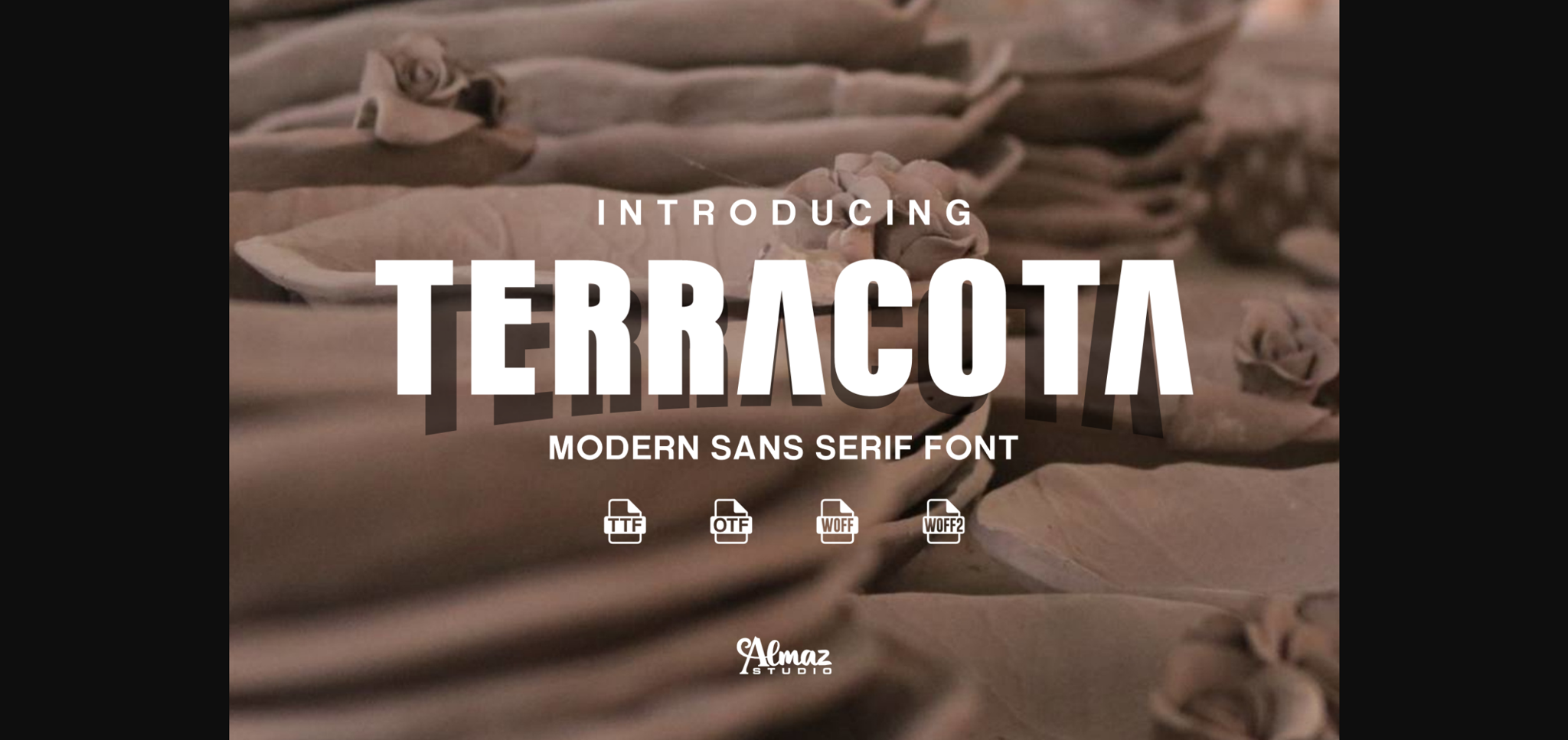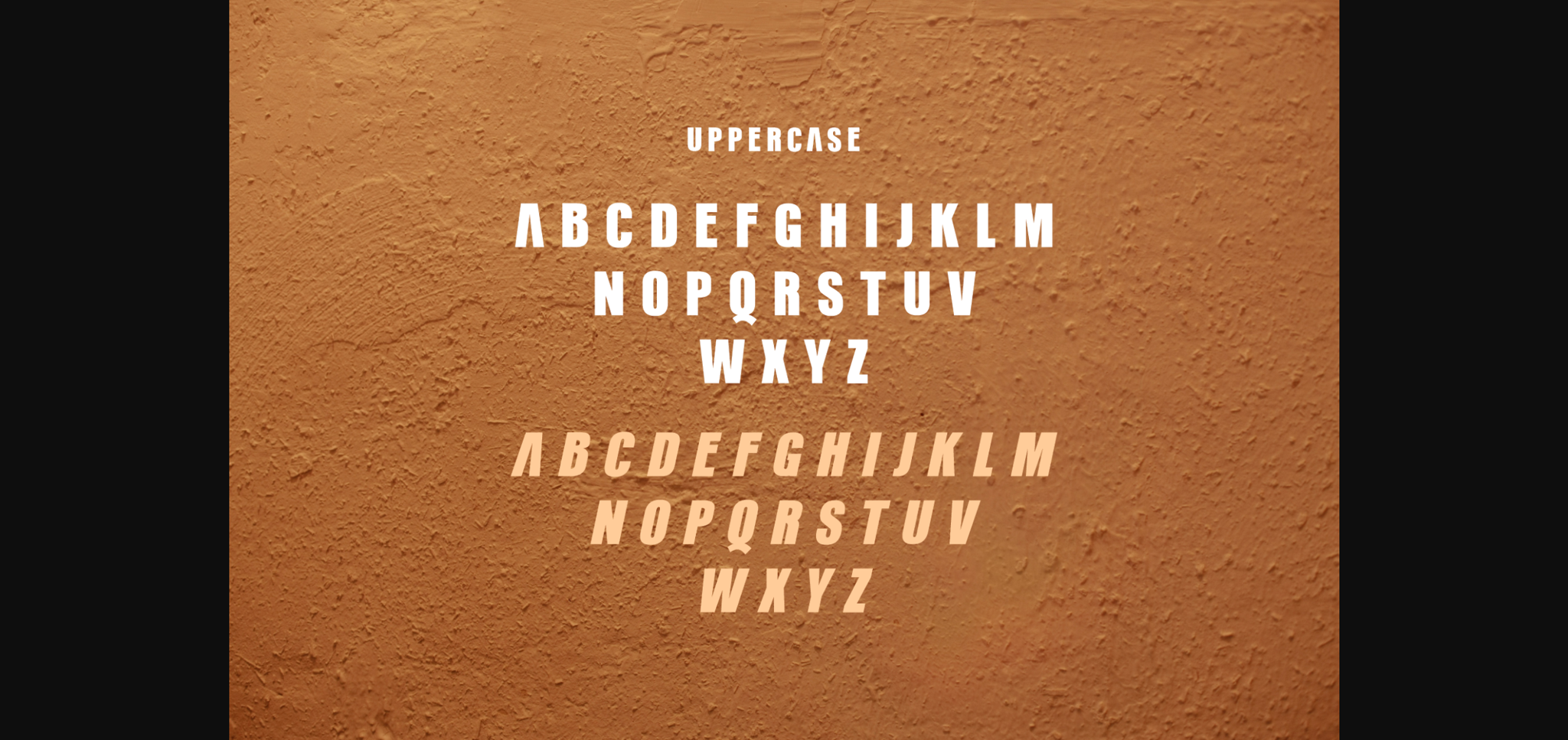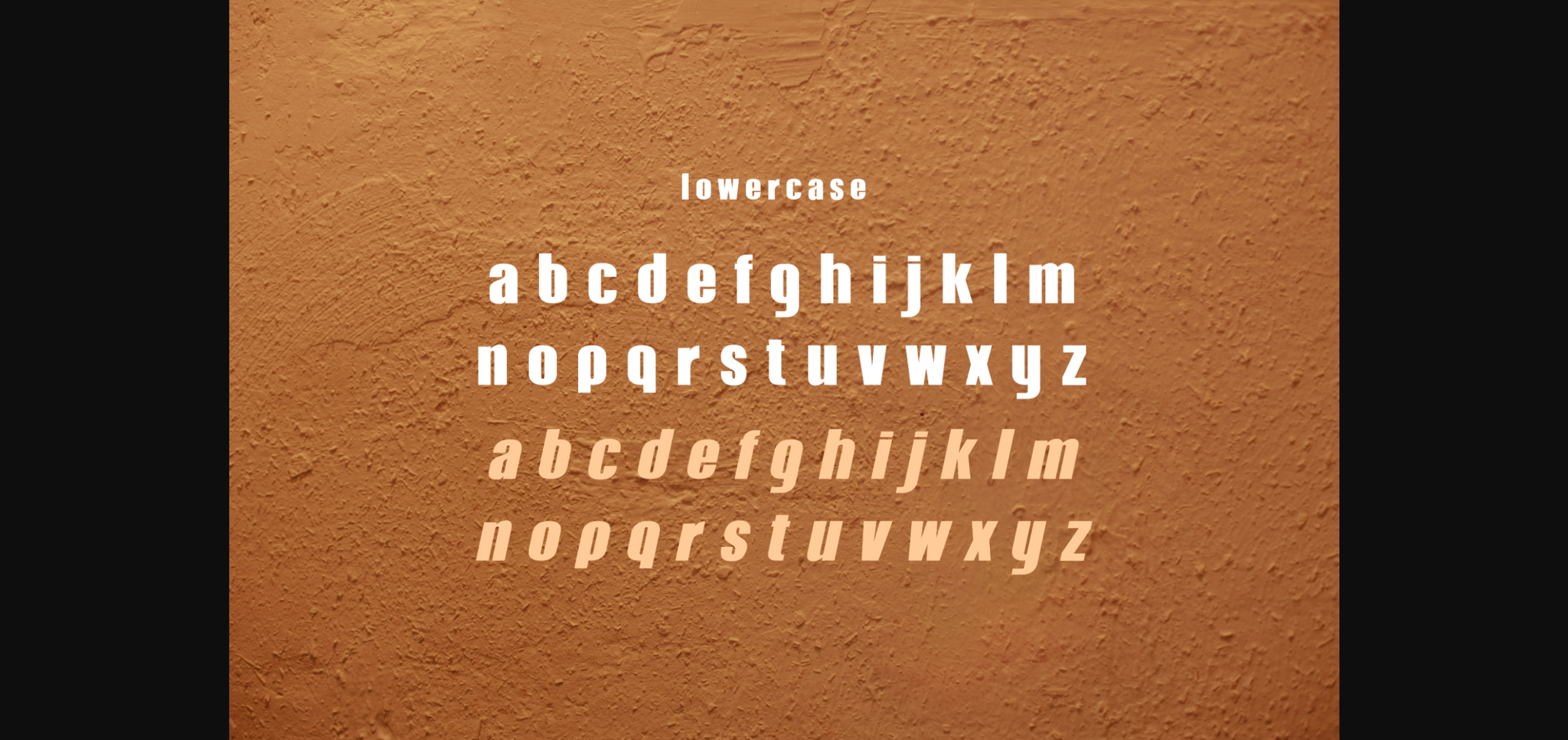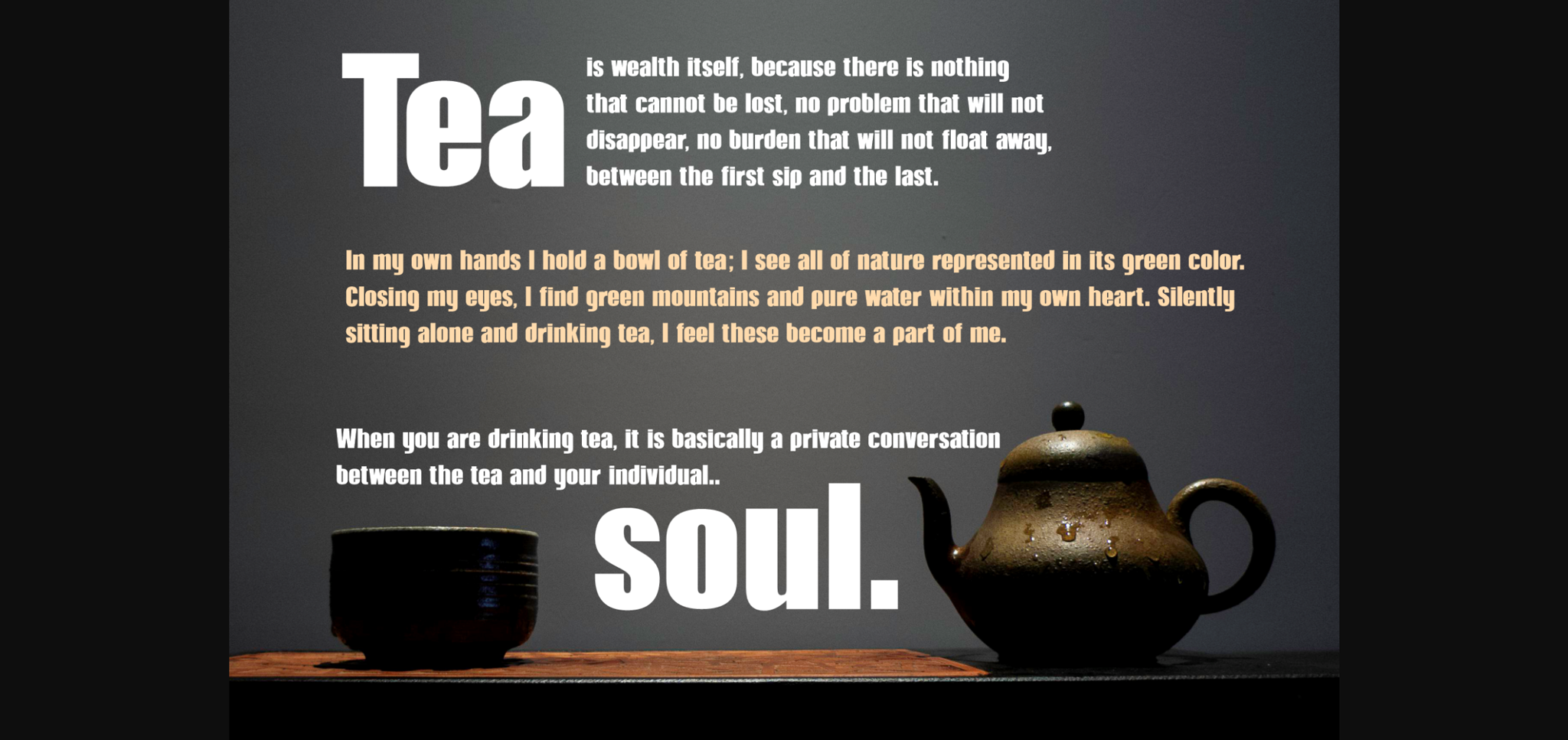
About Terracota Font
Terracota is an elegant sans serif font with a beautiful contrast. Terracota font is a typographic style that emphasizes thickness and weight. It is characterized by strong and prominent letterforms without the use of small lines or decorative elements. The boldness of this font style helps to create a visually striking effect, making it stand out in designs and text compositions.